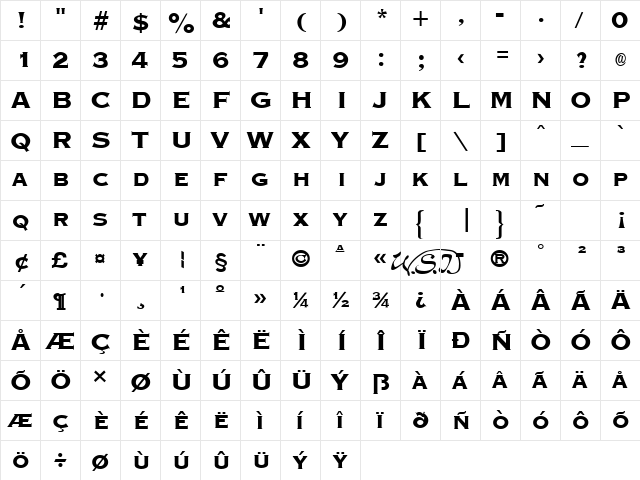
Graverplate Extrabold Regular
Design Context for Graverplate Extrabold Typeface
Graverplate Extrabold takes a measured approach to typography — its balanced proportions and neutral character make it a reliable workhorse for both digital and print work. The heavy weight commands attention and anchors typographic hierarchies.